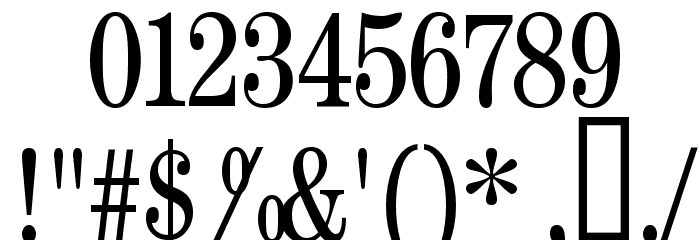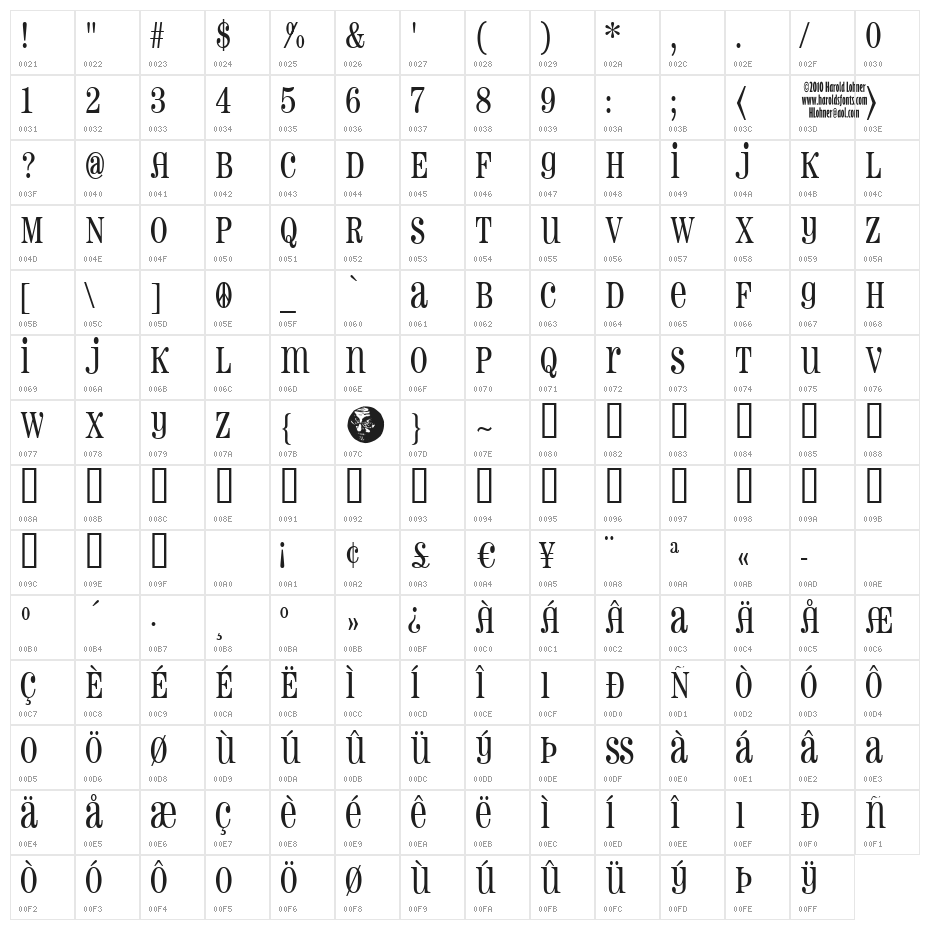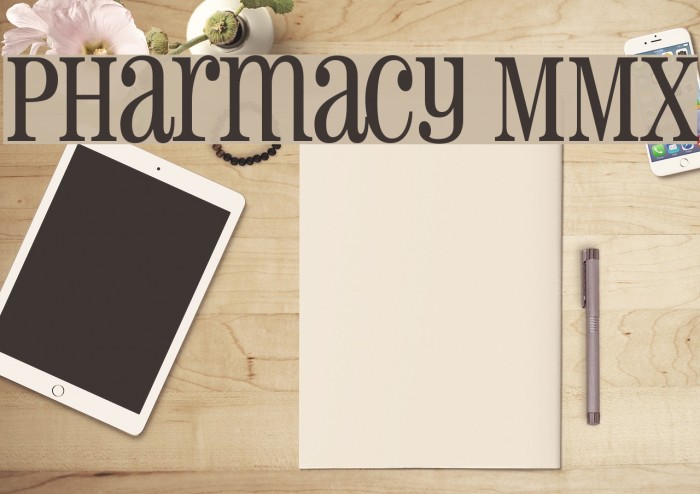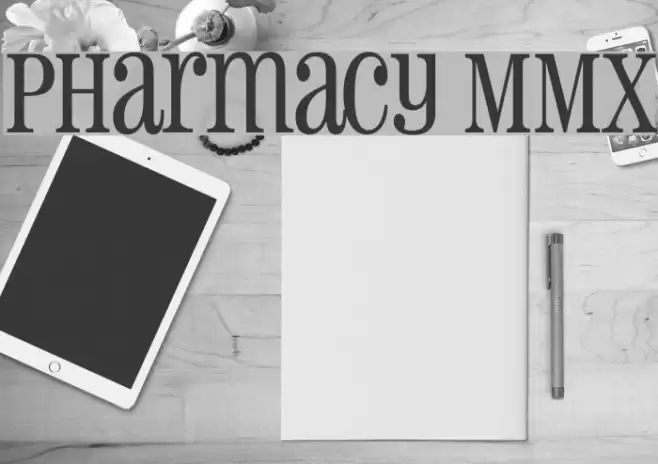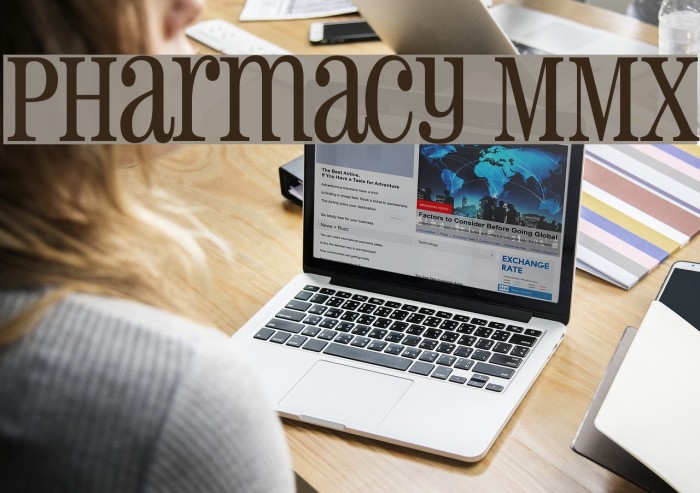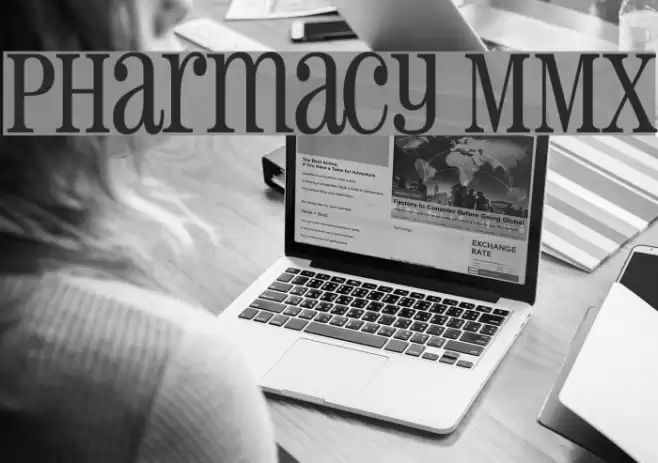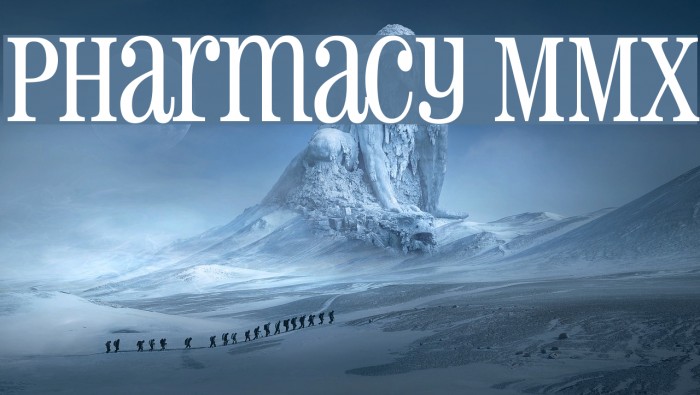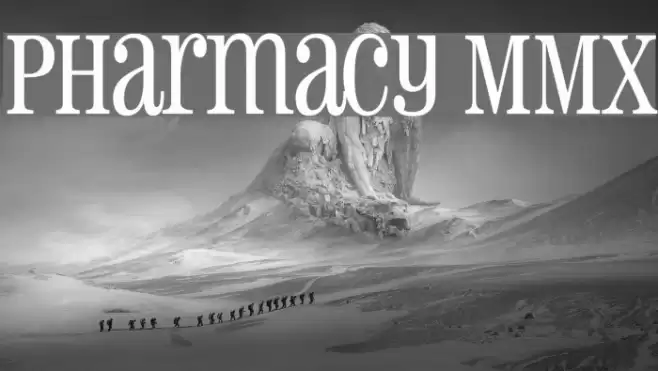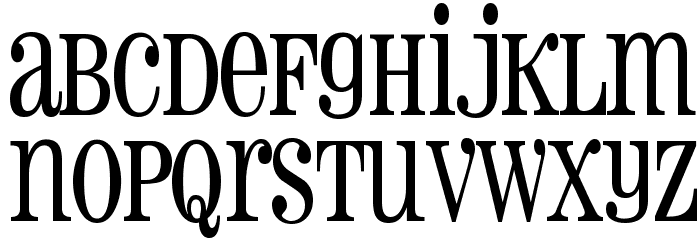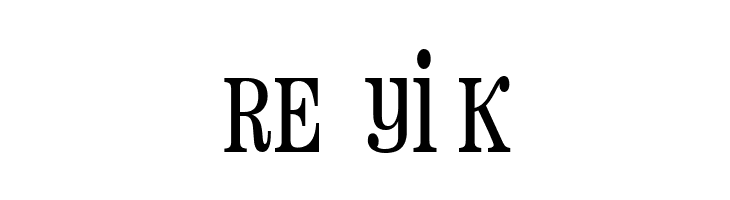
Pharmacy MMX Font
Pharmacy MMX Description
This font features a distinctive blend of modern and vintage elements, characterized by its bold, curvy serifs and high contrast between thick and thin strokes. The uppercase letters are tall and elegant, with a slight curvature that adds a touch of sophistication. The lowercase letters maintain a consistent style, offering a harmonious flow with the uppercase. Numbers are clear and well-defined, making them easily readable. Special characters are uniquely styled, maintaining the overall aesthetic of the font. This font is versatile, suitable for a variety of design projects that require a touch of elegance and readability.
Overall StyleModern Vintage
Use CaseHeadlines, Logos, Editorial Design
Proposed ProjectsIdeal for branding, editorial design, book covers, and luxury product packaging.